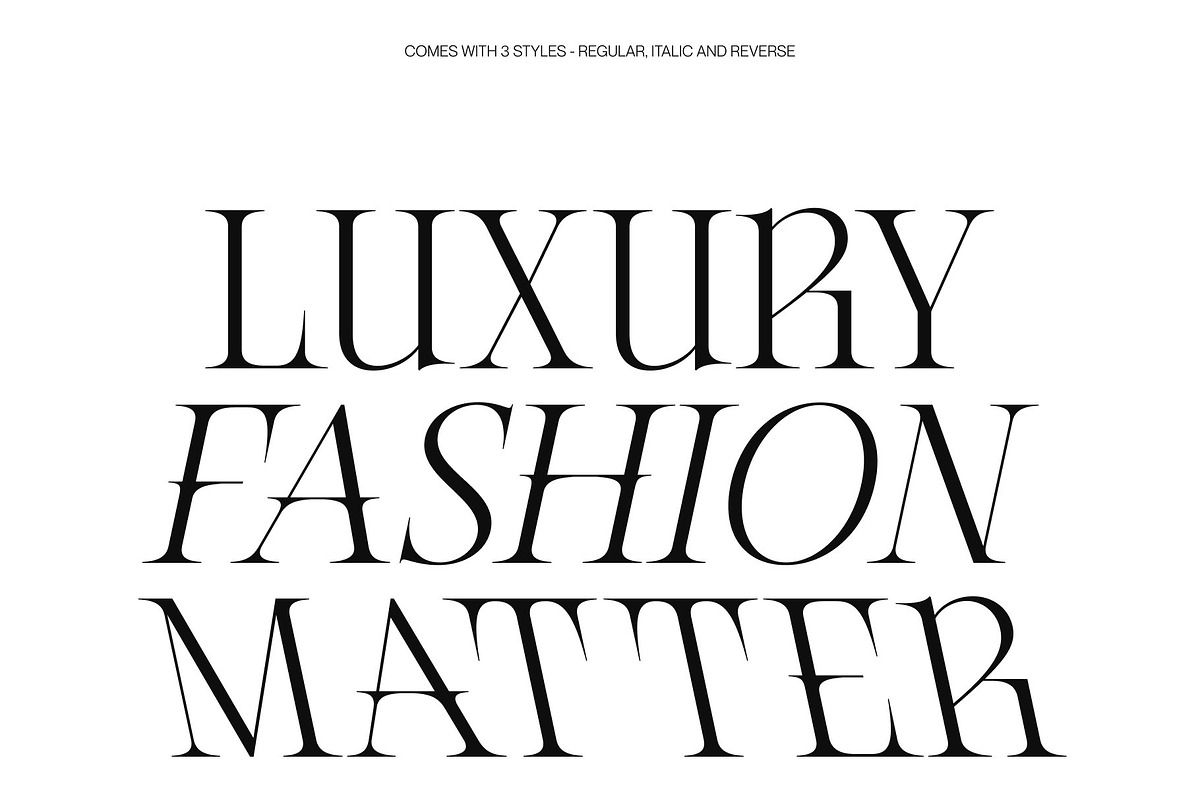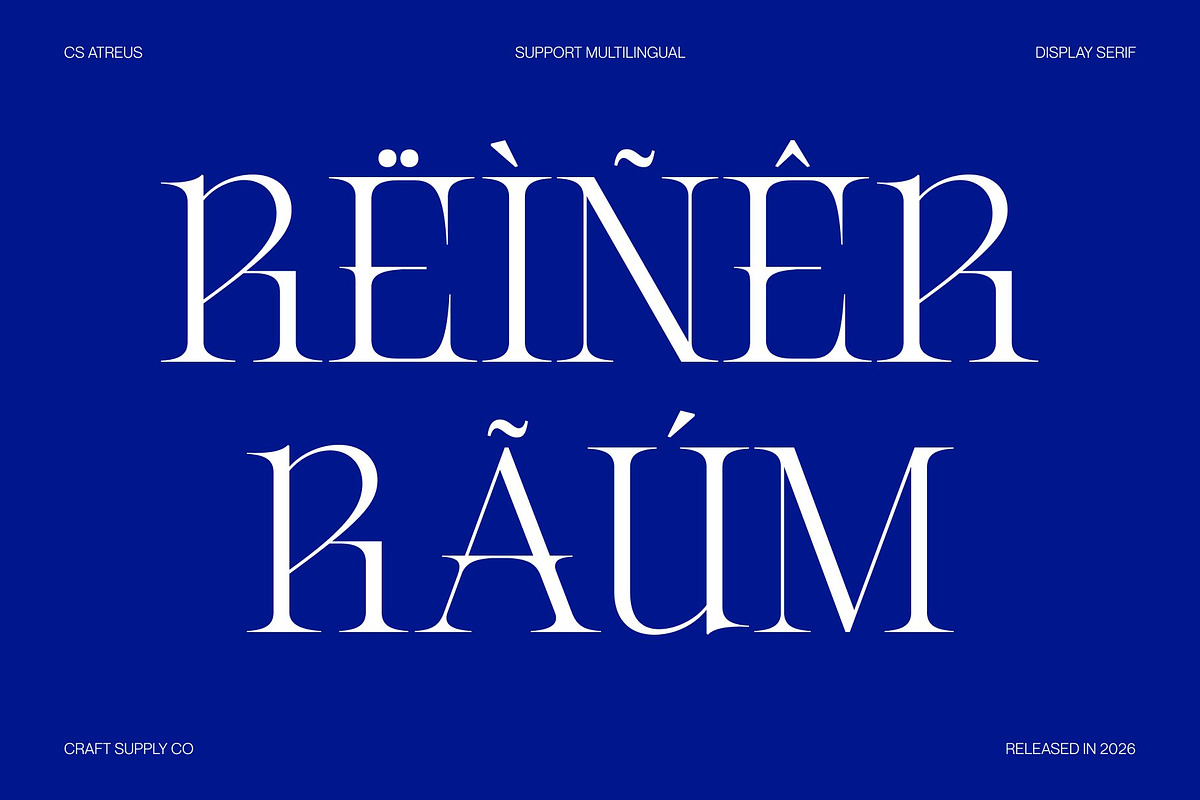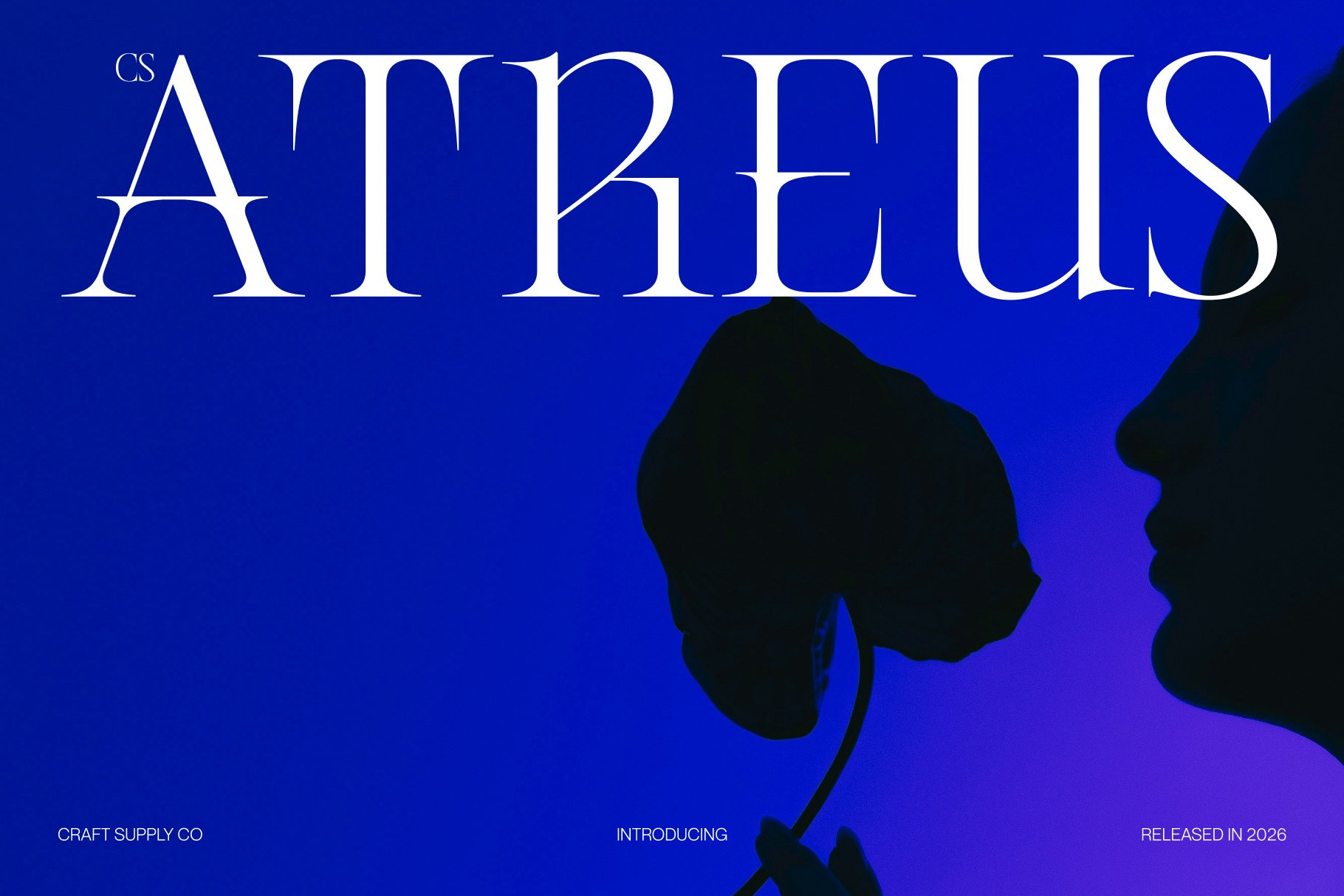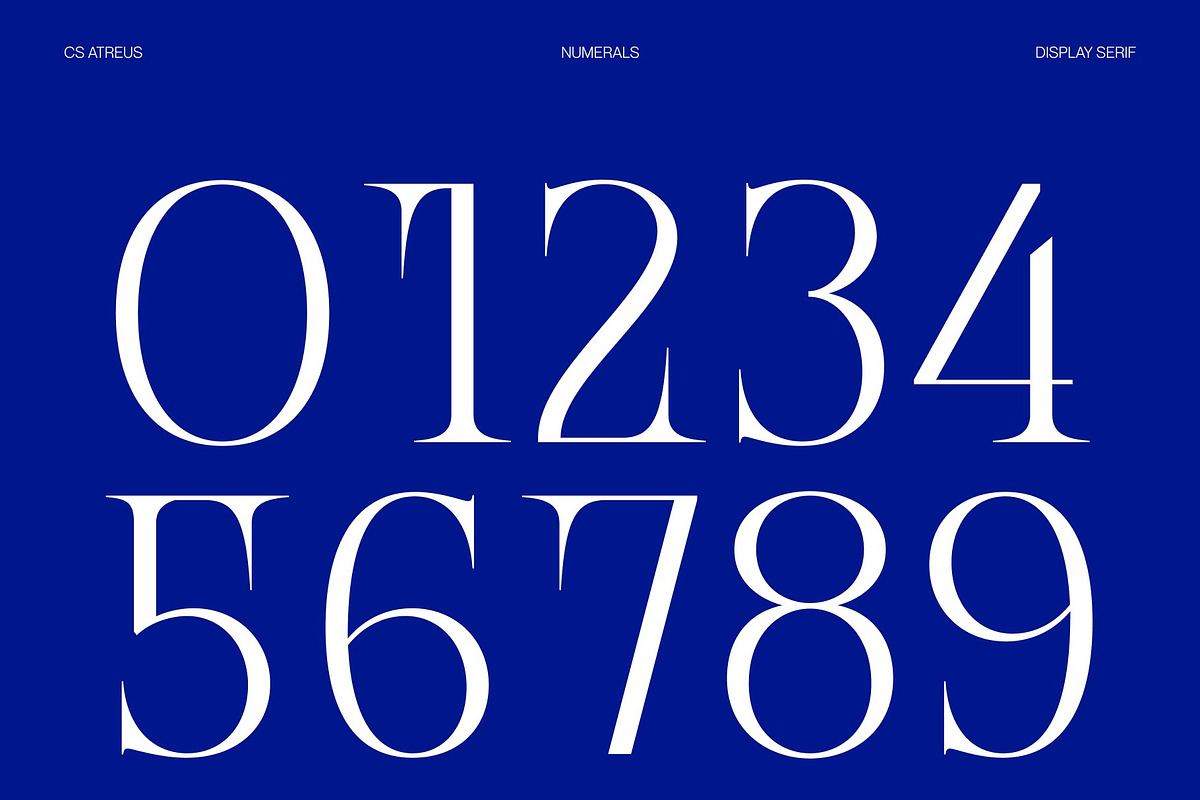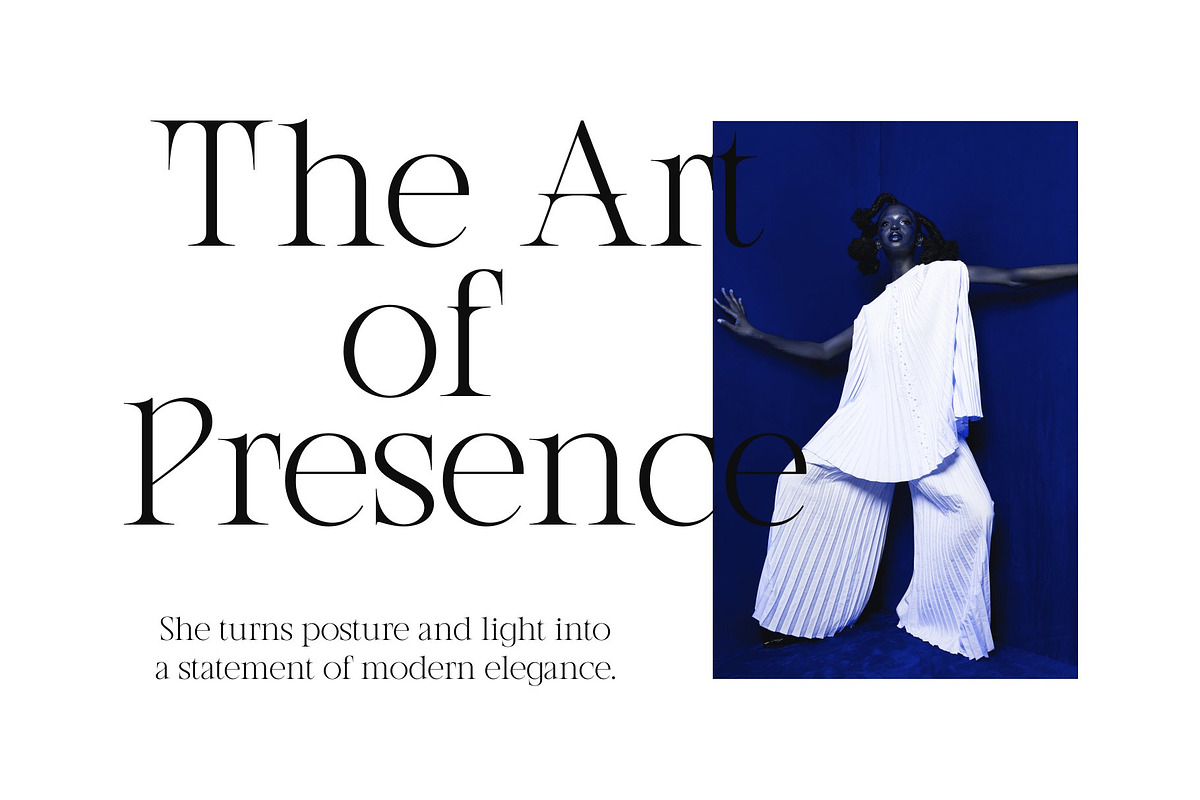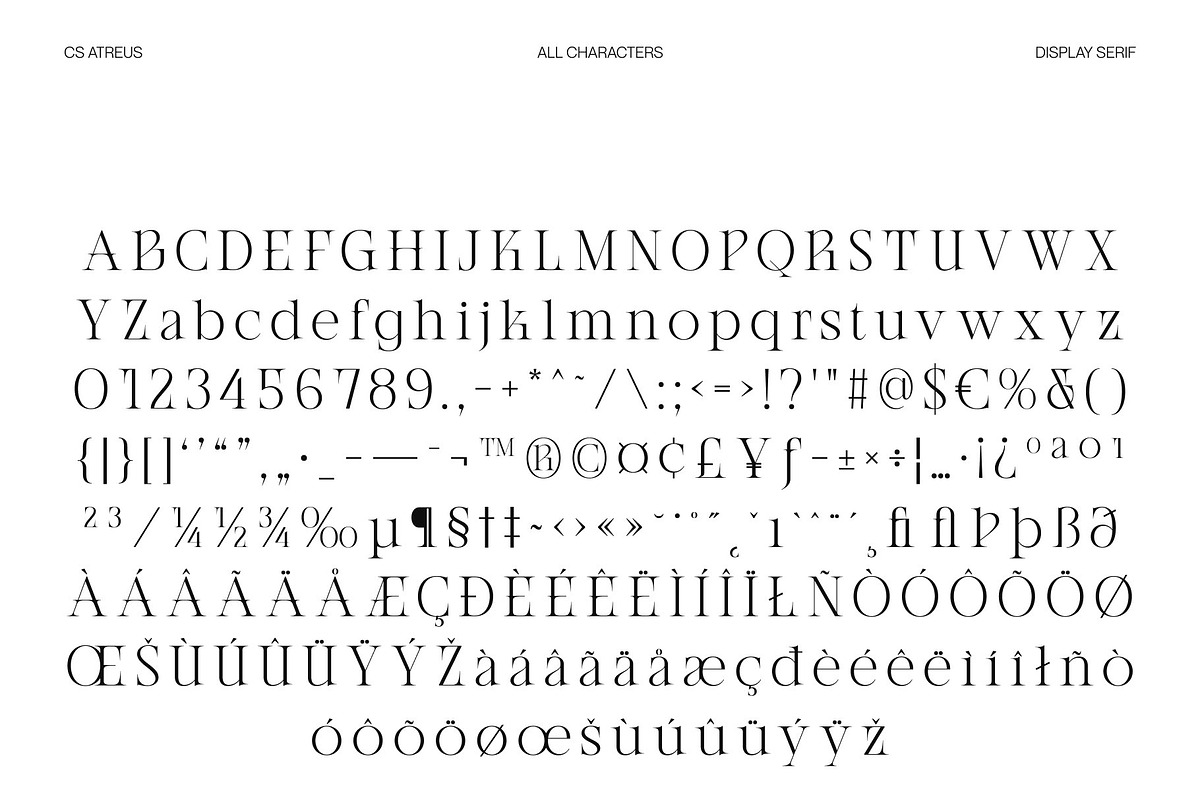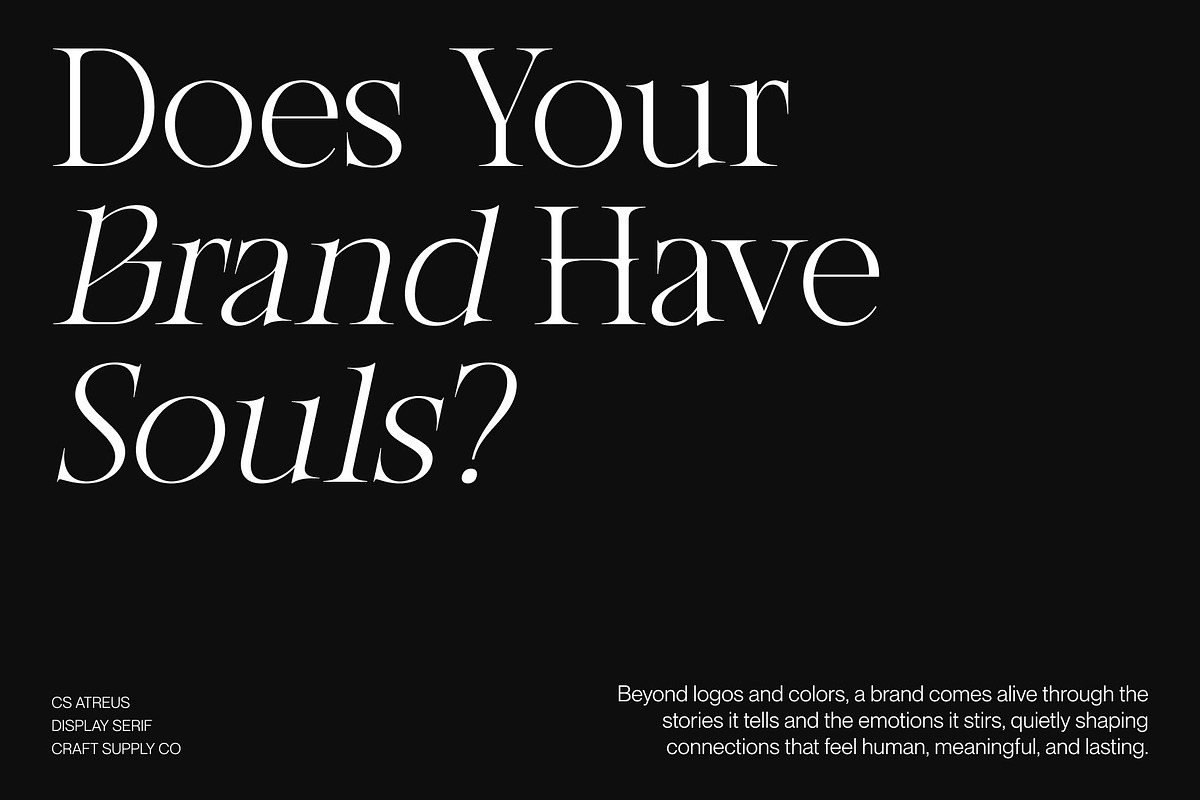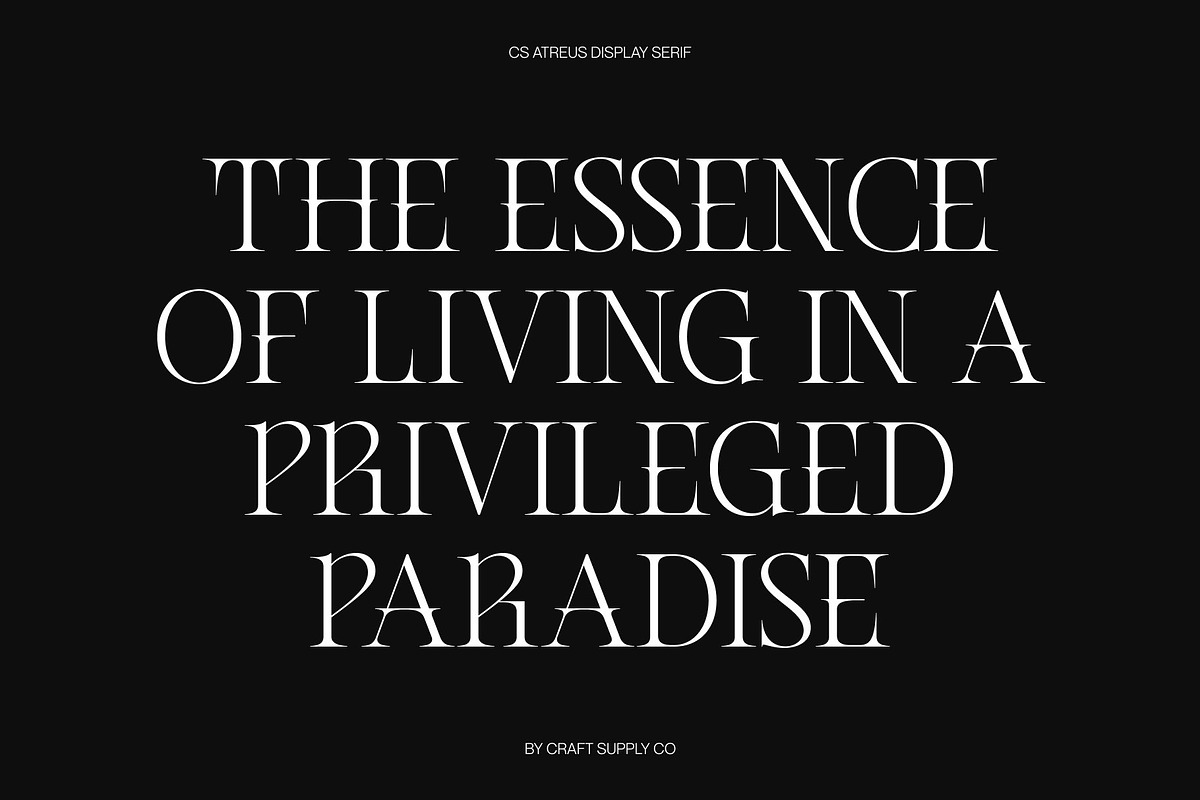
CS Atreus – Modern Serif Font
CS Atreus – Aesthetic Serif with Contemporary Edge
Modern Serif Inspired by Online Culture This is an aesthetic serif font that captures the spirit of modern online culture with a sharp and contemporary voice. Designed to stand out in digital and print environments, this typeface blends classic serif foundations with modern stylistic expression. It delivers a fresh and fashionable look that feels current, stylish, and visually engaging.
Sharp Edges with Distinct Personality The defining feature of this font lies in its sharp edges and clean structure. These refined details create a bold and eye-catching presence that immediately draws attention. The balance between elegance and sharp precision gives the font a confident character while maintaining clarity and readability.
Contemporary Style with Aesthetic Appeal This font embraces modern design trends while preserving the sophistication of serif typography. Its aesthetic personality makes it adaptable across creative projects that demand style and personality. The result is a typeface that feels trendy, polished, and expressive without losing its professional edge.
Perfect for Posters, Branding, and Lifestyle Design From modern branding and social media graphics to posters and lifestyle campaigns, this font provides a versatile typographic solution. Its combination of sharp elegance and contemporary energy ensures your designs feel fresh, stylish, and visually compelling.